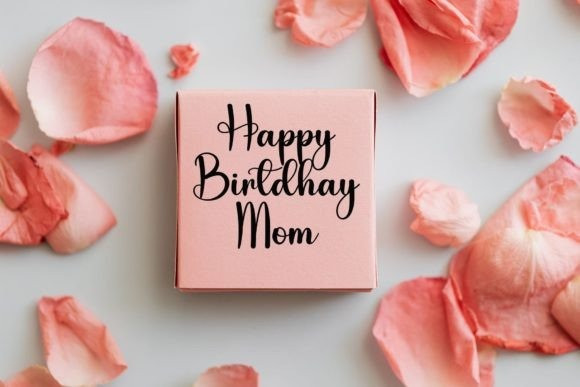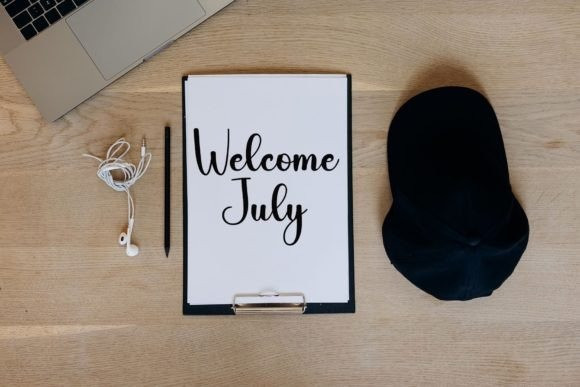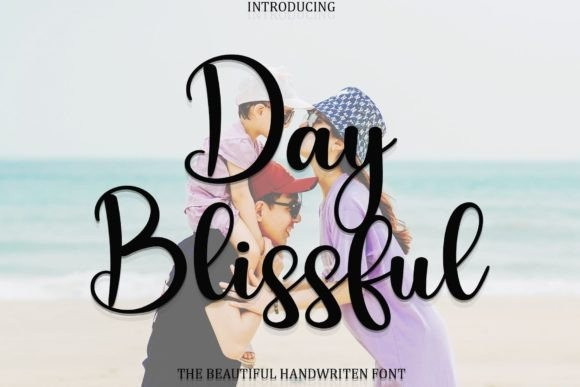
Day Blussful Font
Day Blussful Font, is a sweet and lovely handwritten font. Its natural and unique style makes it incredibly fitting to a large pool of designs. The only limit is your imagination!